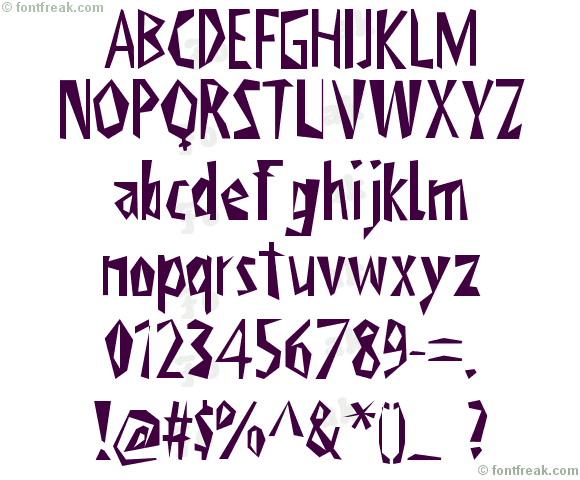
Viktors Littl Creepy Horror
About Viktors Littl Creepy Horror
Viktors Littl Creepy Horror is a distinctive display font designed by Manuel Viergutz, perfect for projects that require a touch of the macabre. This quirky typeface falls into the decorative category, characterized by its playful yet eerie aesthetic. The font showcases a unique style with uneven stroke weights and a whimsical charm, which contributes to its overall creepy vibe. The letters are spaced closely, enhancing the font's bold presence, while the exaggerated forms and jagged edges add a layer of intrigue and character.
This font is ideal for a variety of creative applications. It shines in horror-themed movie posters, where it can evoke suspense and excitement. Additionally, Viktors Littl Creepy Horror is a great choice for Halloween invitations, providing an engaging element that captures the season's spirit. Graphic designers may find it useful for creating eye-catching book covers, particularly in the horror or fantasy genres. It can also be effectively utilized in merchandise design, such as T-shirts or stickers, aimed at fans of the spooky aesthetic. Small business owners, especially those in niche markets like haunted attractions or horror-themed cafes, will appreciate the font's ability to convey a unique brand identity.
The target audience for this font includes graphic designers, content creators, and small business owners who seek to make a memorable impression. With its playful yet unsettling design, Viktors Littl Creepy Horror stands out from conventional typefaces. Its unique blend of whimsy and fright ensures that any project using this font will grab attention and leave a lasting impact. For those interested in incorporating this striking typeface into their designs, the Viktors Littl Creepy Horror font free download makes it easily accessible for creative endeavors.